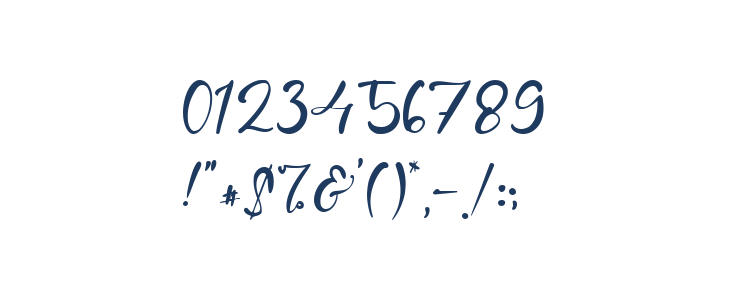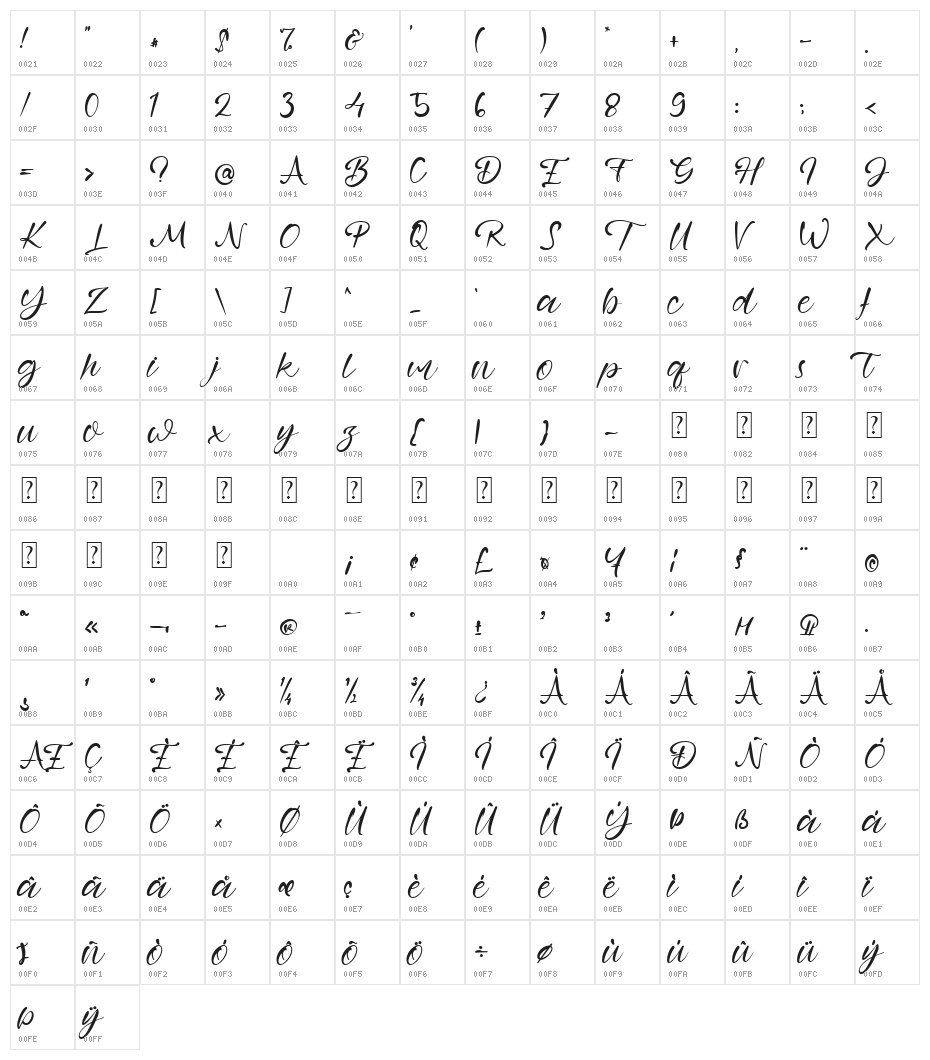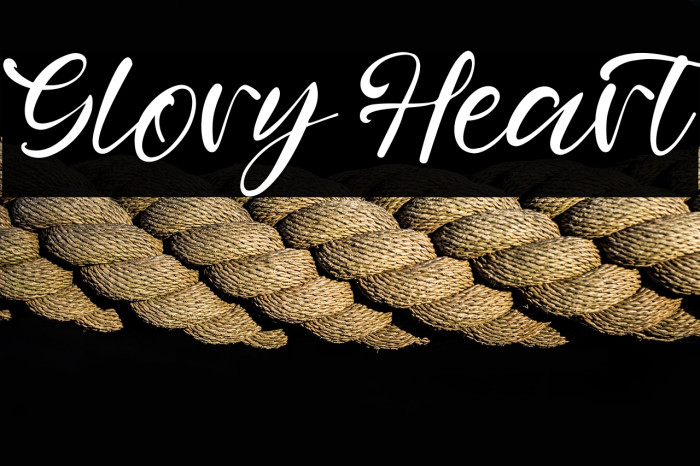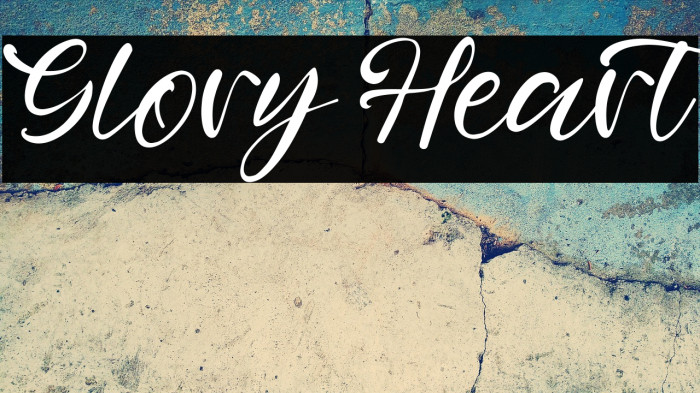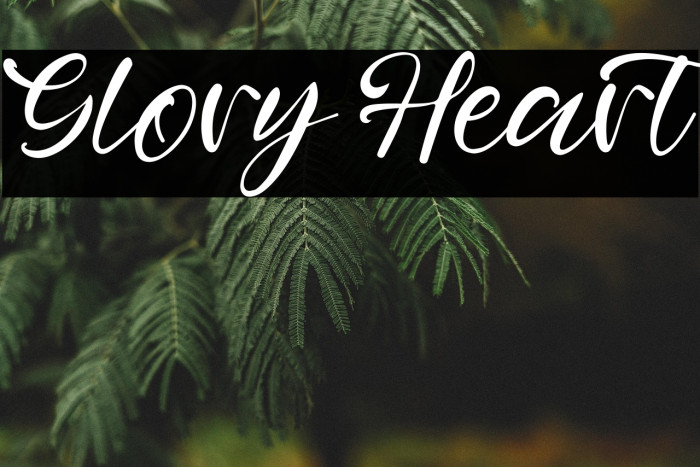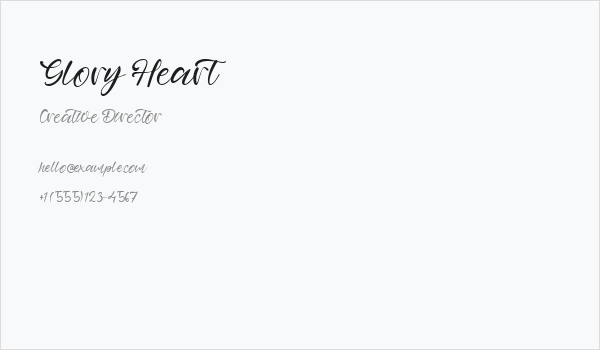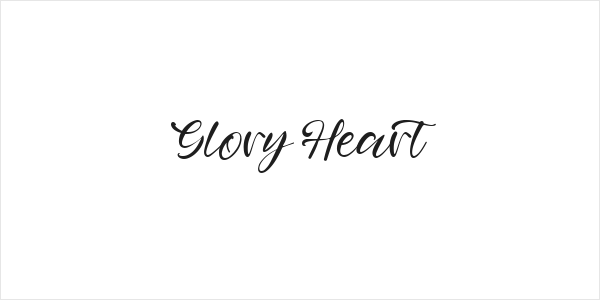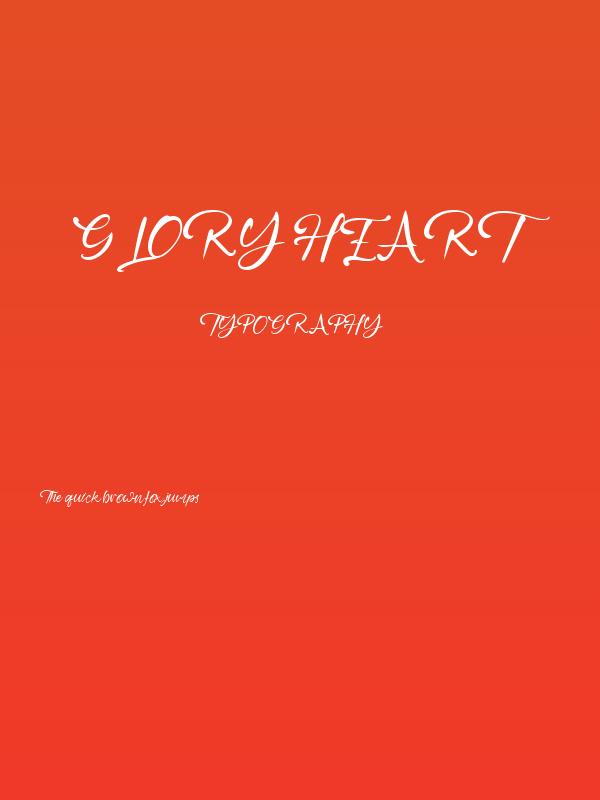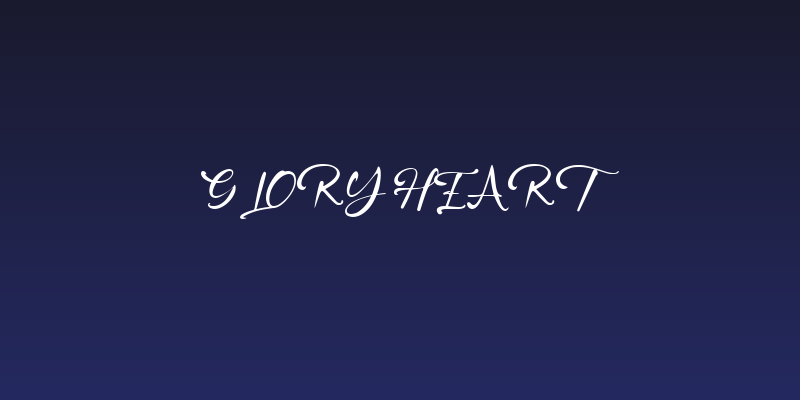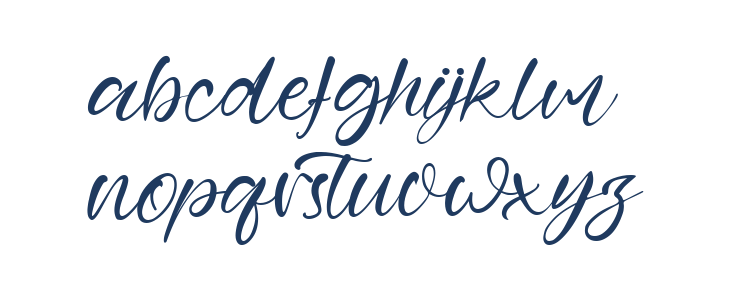
Glory Heart Font
Glory Heart Description
This font exudes a flowing, elegant script style with a modern twist. The characters are interconnected, giving a sense of continuity and fluidity. The uppercase letters are bold and expressive, while the lowercase letters maintain a graceful and consistent flow. The numerals are distinct yet harmonize well with the overall script style. Special characters are designed to complement the script, adding a touch of sophistication. The font's design is perfect for projects that require a personal, handwritten touch, yet it maintains a level of professionalism and clarity.
| Proposed Projects | Ideal for wedding invitations, greeting cards, branding, and logo design where a personal touch is desired. |